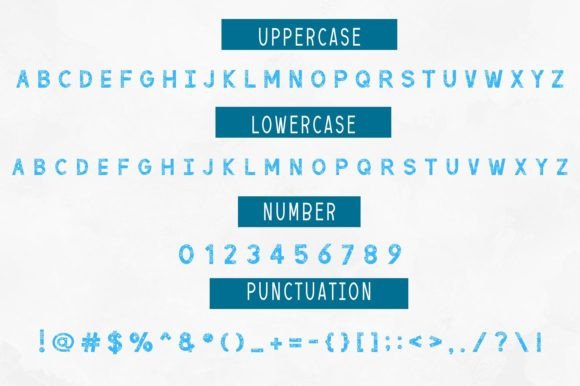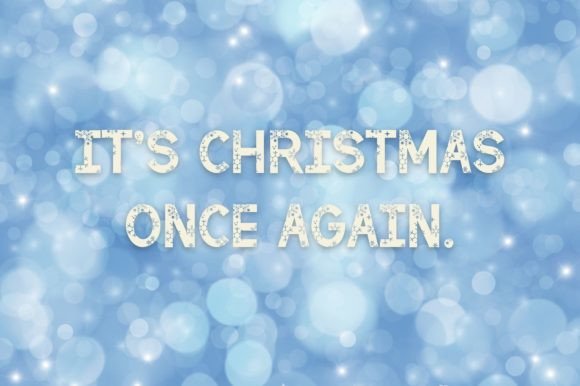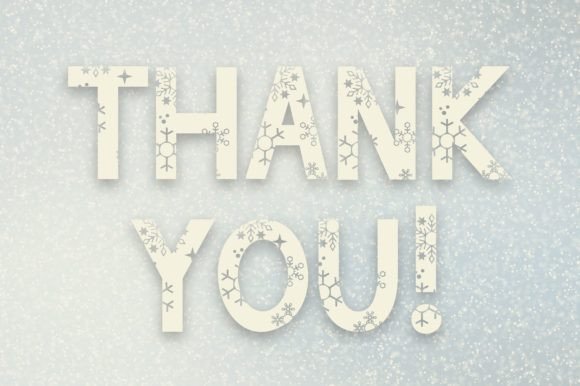
Christmas Snow Font: A Cute Winter-Themed Decorative Font for Your Holiday Projects
Are you looking for a font that captures the magic and playfulness of the winter season? Look no further than the Christmas Snow Font! This adorable winter-themed decorative font is perfect for adding a touch of festive fun to your designs, crafts, and projects. In this article, we’ll explore the features and benefits of the Christmas Snow Font, and show you how to make the most of this delightful font in your creative endeavors.
What is Christmas Snow Font?
Christmas Snow Font is a cute and charming winter-themed decorative font that embodies the playfulness and authenticity of the holiday season. With its whimsical and festive design, this font is sure to add a touch of magic to any project. Whether you’re a designer, crafter, or DIY enthusiast, Christmas Snow Font is the perfect choice for creating holiday-themed cards, invitations, posters, and more.
Key Features of Christmas Snow Font
• Playful and Authentic Design: Christmas Snow Font features a unique and playful design that captures the essence of the winter season. Its authentic look and feel make it perfect for creating festive and engaging projects.
• High-Quality Design: Christmas Snow Font is designed with high-quality graphics, ensuring that your projects look professional and visually appealing.
• Versatile: This font can be used for a wide range of projects, from holiday cards and invitations to posters, flyers, and more.
• Adds a Touch of Festivity: Christmas Snow Font adds a touch of festive fun to any project, making it perfect for holiday-themed designs.
• Unique and Eye-Catching: This font’s unique design makes it stand out from other fonts, ensuring that your projects grab attention and leave a lasting impression.
Ideas for Using Christmas Snow Font
Wondering how to use Christmas Snow Font in your projects? Here are a few ideas to get you started:
• Holiday Cards: Create festive holiday cards for friends and family using Christmas Snow Font.
• Invitations: Design beautiful and festive invitations for holiday parties and events.
• Posters and Flyers: Create eye-catching posters and flyers for holiday promotions and events.
• Social Media Graphics: Use Christmas Snow Font to create engaging social media graphics for the holiday season.